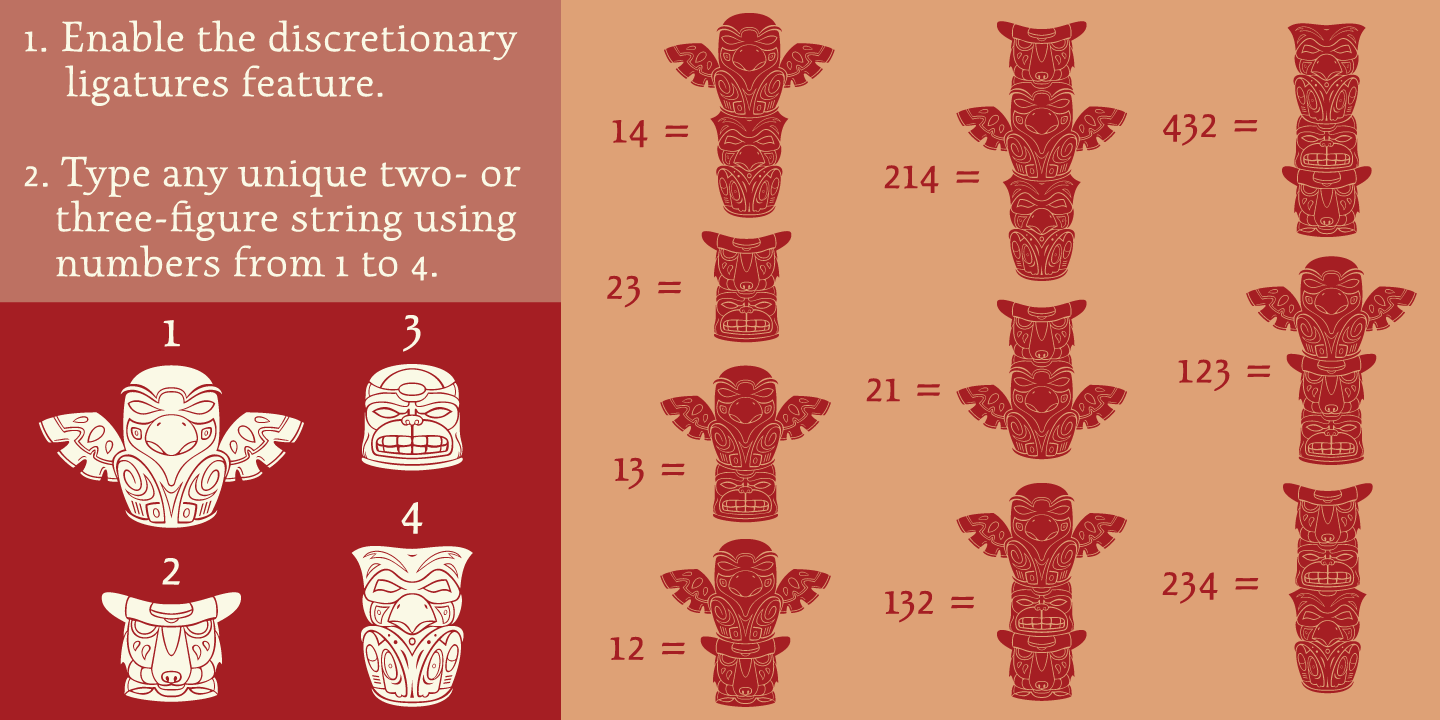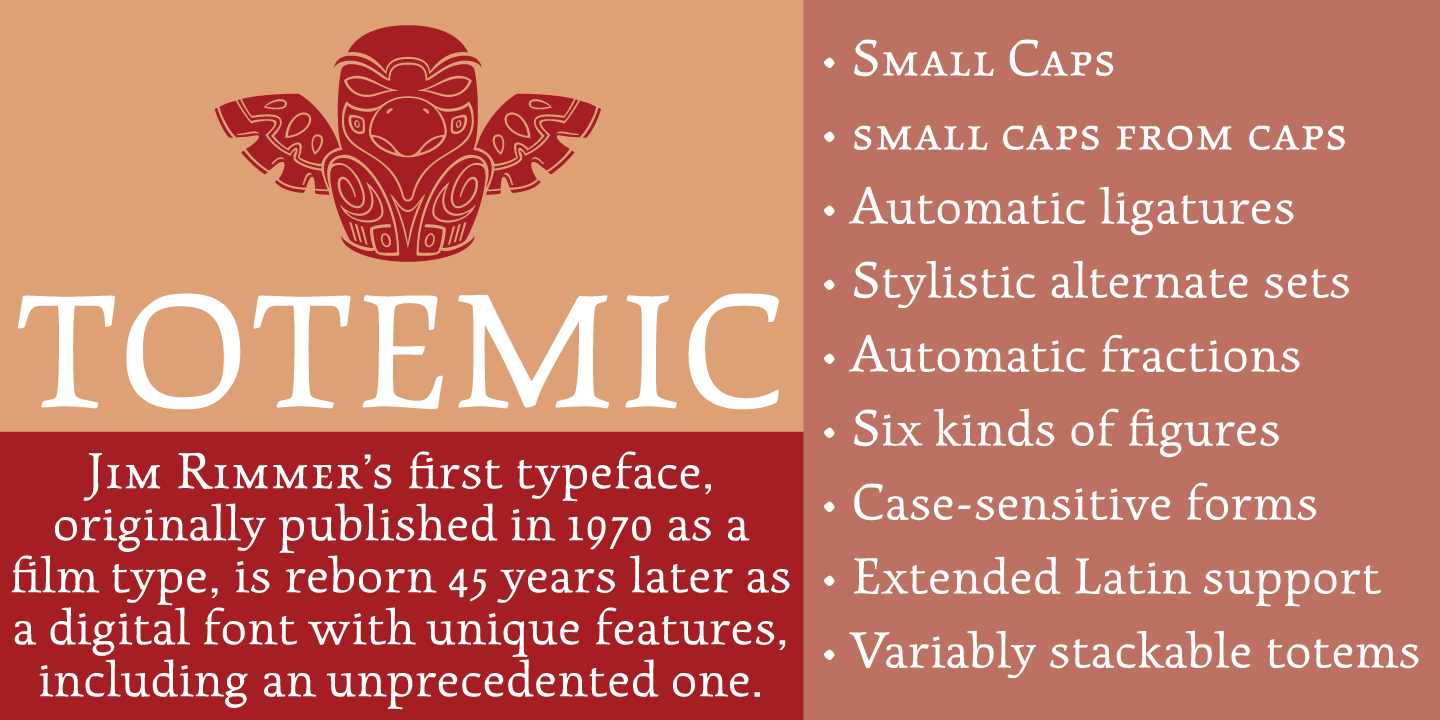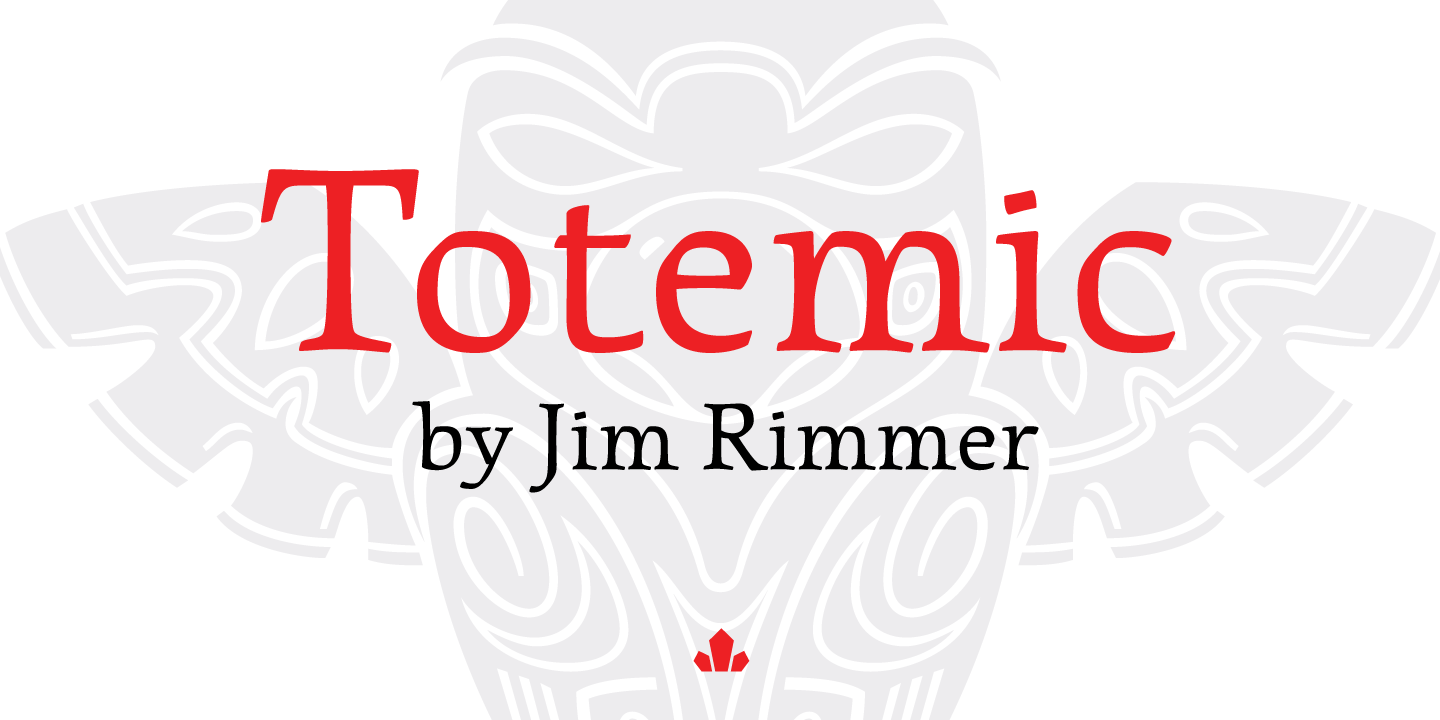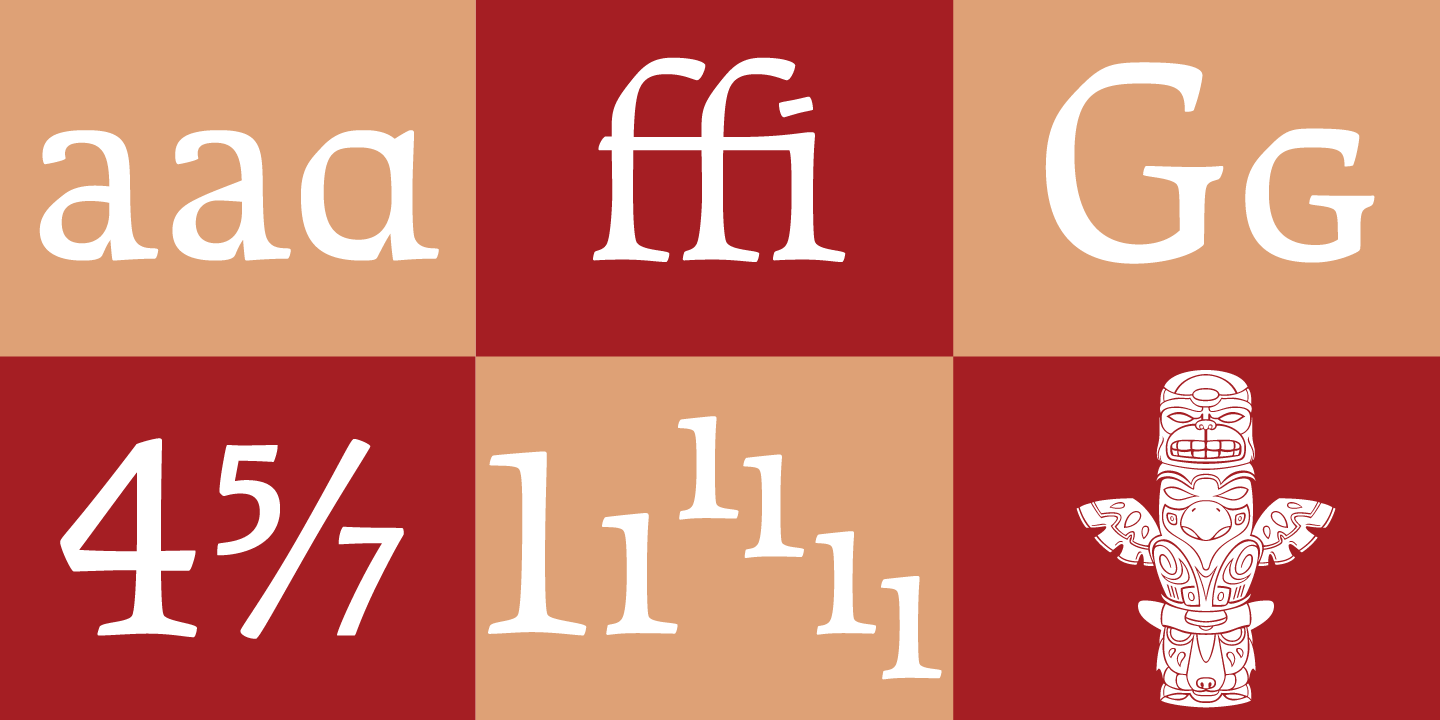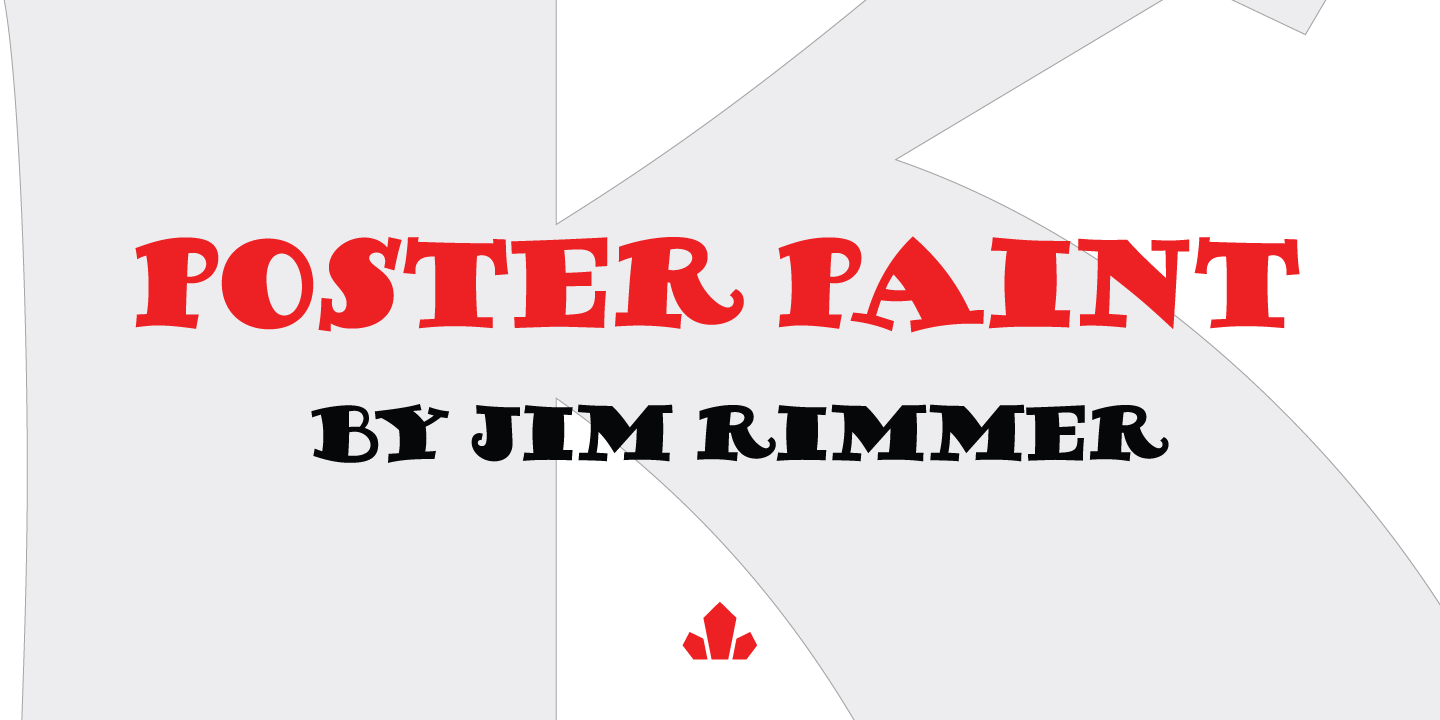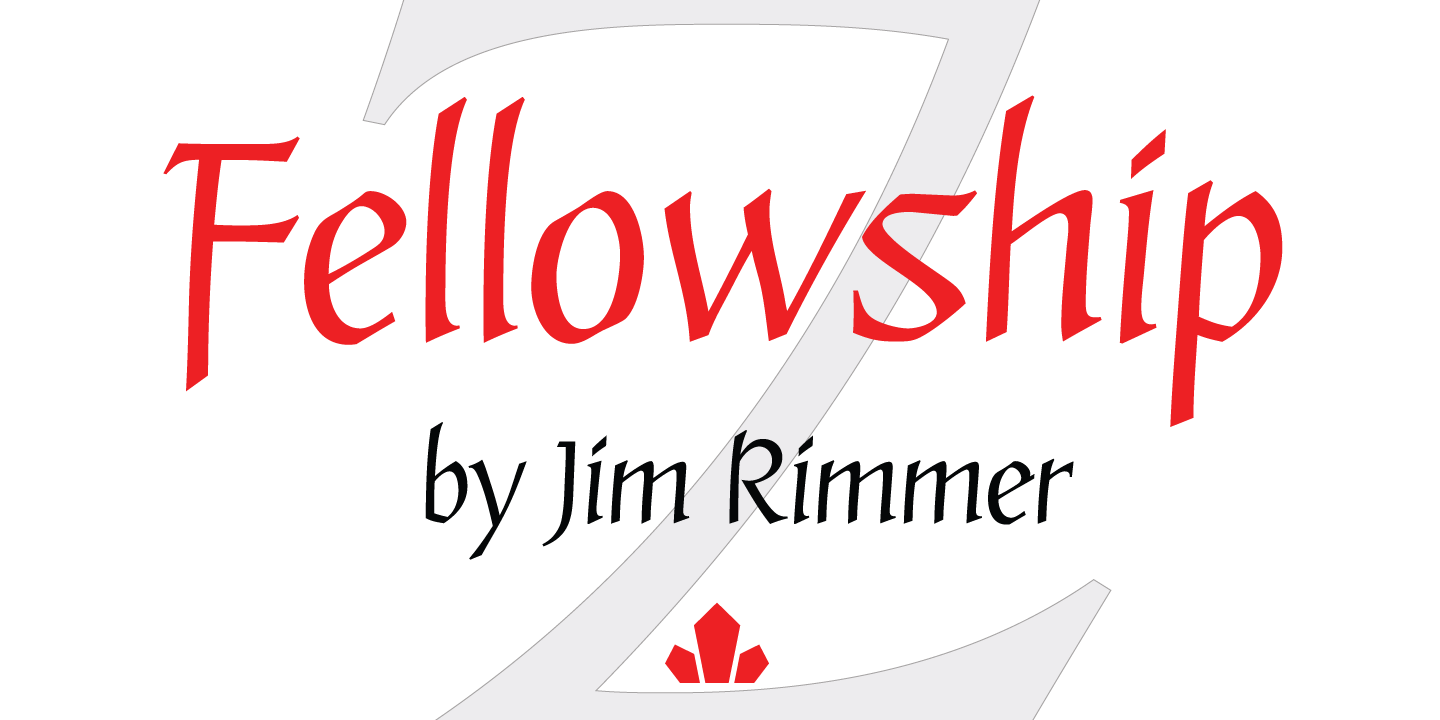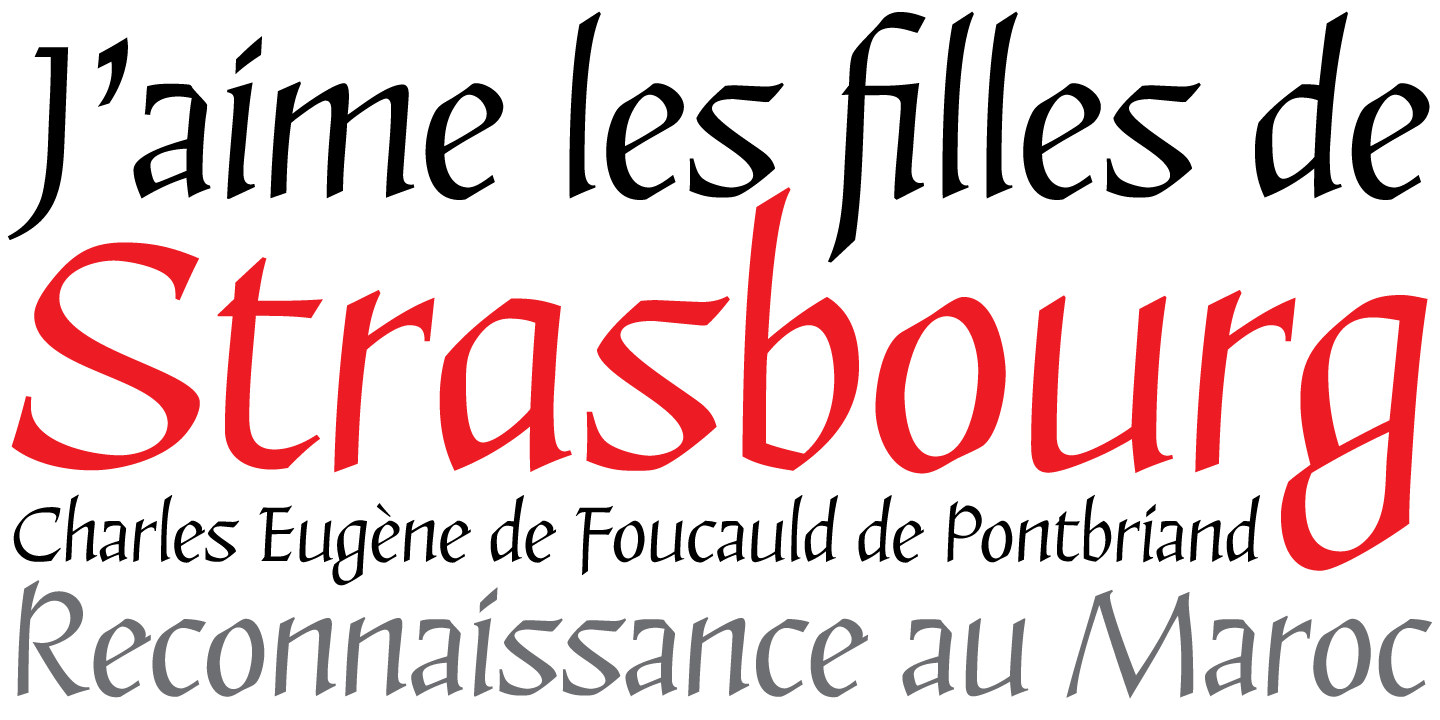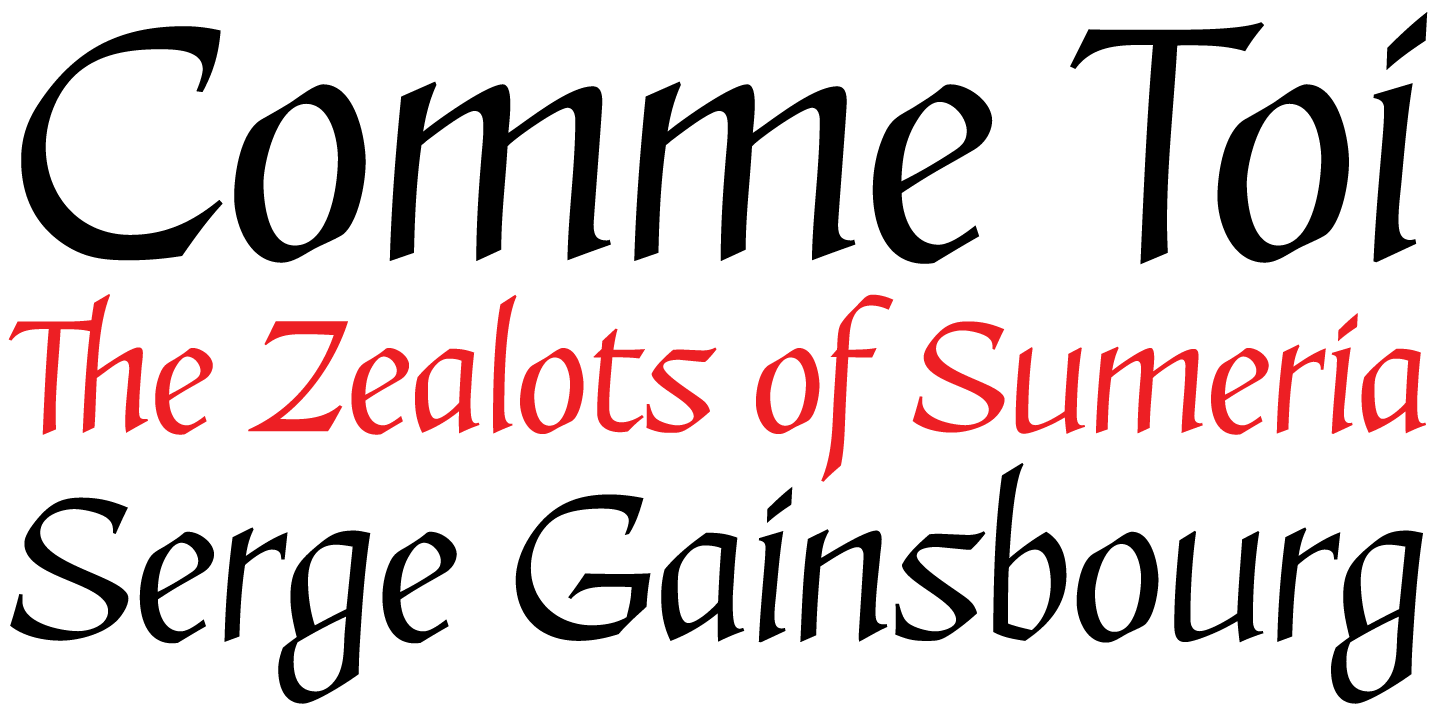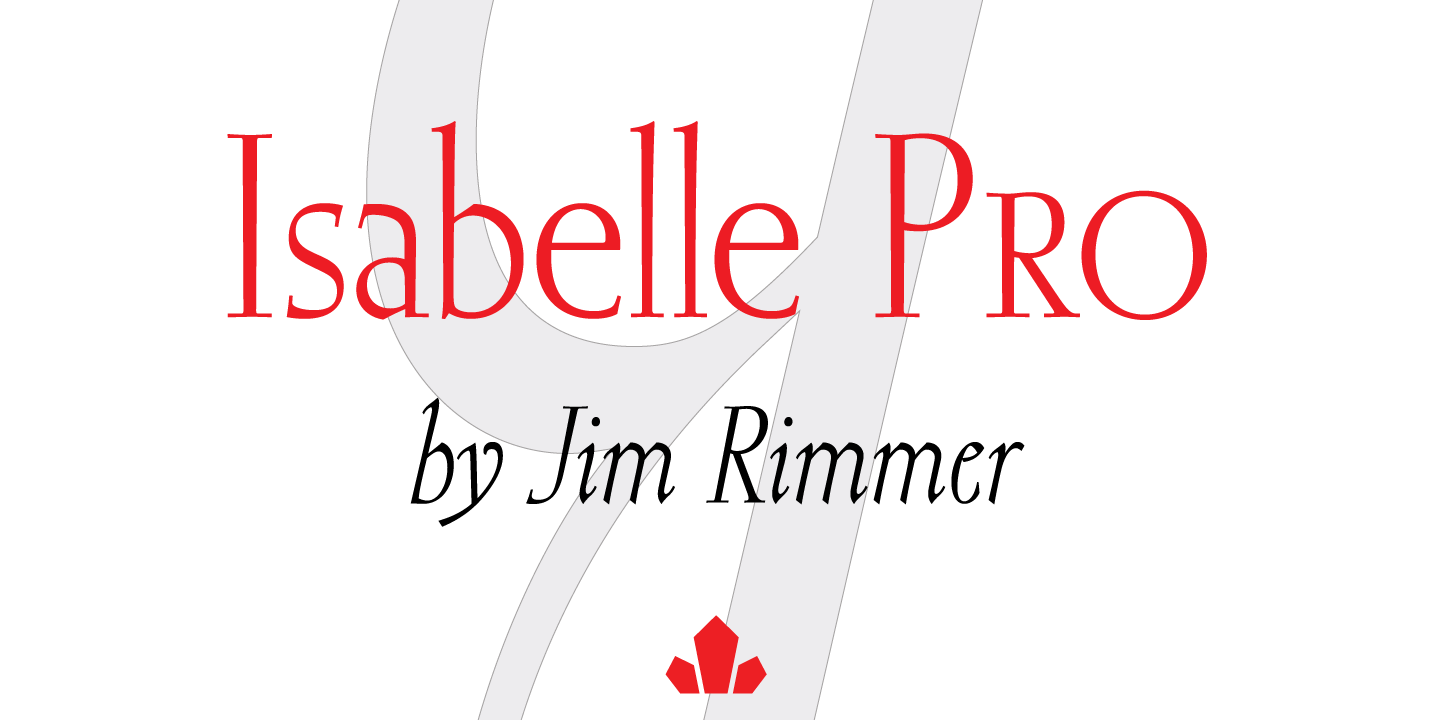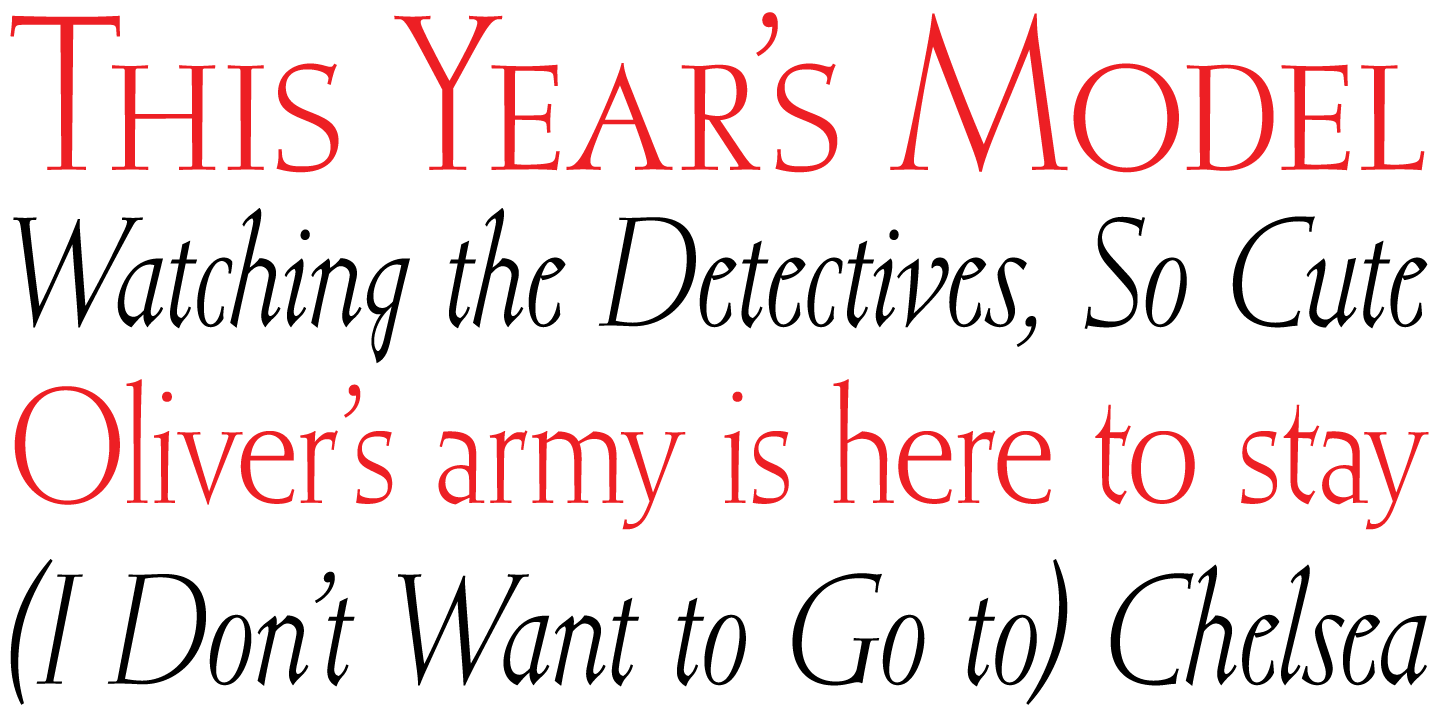
Jim Rimmer of CanadaBorn: Vancouver BC, 1934 Jim Rimmer’s background includes years with hot metal type in the composing room, and in the operation of the Linotype and the Monotype. He continued designing and cutting faces in metal in concert with those that he designed for digital format on his Macintosh. In 2000 and 2001 he completed two hot metal faces and has later finished a third: Hannibal Oldstyle for the printing of the book: Tom Sawyer in 2006. He used these typefaces in the books that he designed, illustrated, printed and occasionally wrote for his own private press, the Pie Tree Press in Vancouver. His experience in graphic design covered over 40 years, encompassing positions in advertising agencies and design studios. For more than 25 years he had the good fortune to experience the mixed blessings of freelancing as a letterer, designer, and illustrator. In addition he served as Type Director of Lanston during its time in Vancouver and made the digital versions of the Cloister, Deepdene and Garamont fonts for the Lanston Type Company. Rimmer Type Foundry is the gathering of Jim’s metal typefounding knowledge and hand skills with his many years as a lettering artist into something useable in the digital font world. The foundry leans in the direction of traditional type forms but does address the need to offer more contemporary type styles. Fonts by Jim RimmerAlbertan, RTF Alexander Quill, RTF Amethyst, Cadmus, RTF Canadian Syllabics, LTC Cloister, RTF Cotillion, RTF Credo, RTF Dokument, Fellowship, LTC Garamont, LTC Kaatskill, RTF Lancelot Title, Lapis, RTF Posh Initials, RTF Poster Paint, RTF Loxley, RTF Stern Pro, RTF Stern, RTF Zigarre Script Browse all fonts by Jim Rimmer Activities Related Links